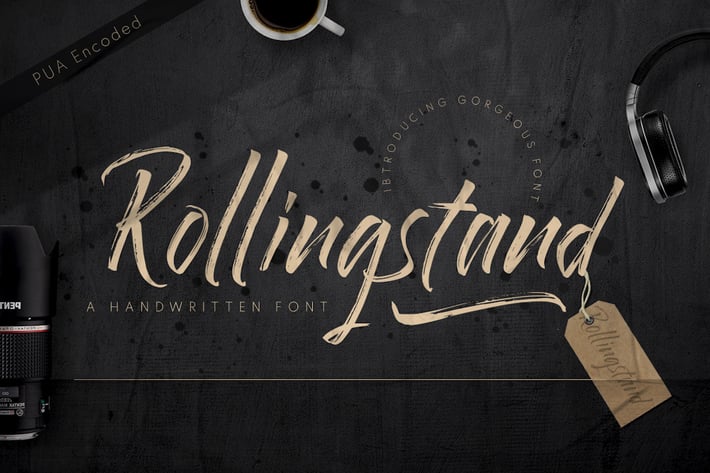
Rollingstand - Modern Brush Font
Introducing: Rollingstand! modern handwritten font with a quick-dry stroke. With swash and regular style, Rollingstand is perfect for photography, watermark, social media posts, advertisements, logos & branding, invitation, product designs, label, stationery, wedding designs, product packaging, special events or anything that need handwriting taste.
+ Multilingual Support
+ Rollingstand with Regular style
+ Rollingstand with Swash
+ PUA Encoded Characters